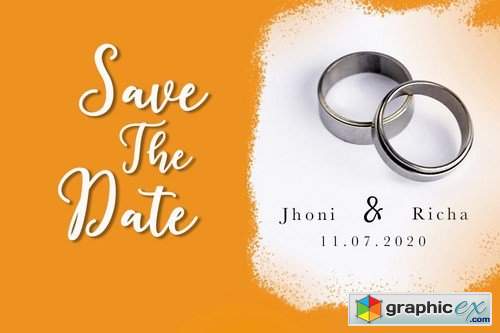
Hista Script
Hista Script Modern Calligraphy Fonts, combines from copperplate to contemporary typeface with a dancing baseline, classic and elegant touch. Can be used for various purposes. such as headings, signature, logos, wedding invitation, t-shirt, letterhead, signage, label, news, posters, badges etc.